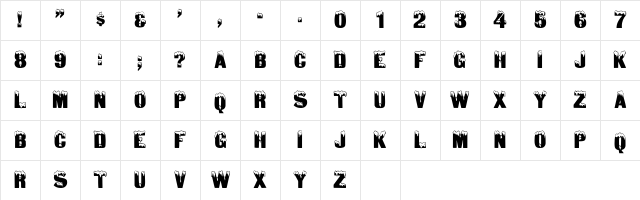
Tone Plain Regular Free Font
Tone Plain Regular
Tone Plain Family
Design Context for Tone Plain
Tone Plain is a composed and adaptable typeface that performs quietly and consistently across a wide range of design contexts.
Pro Tip: Use Tone Plain in both headline and body roles to test its range before committing to a single application.